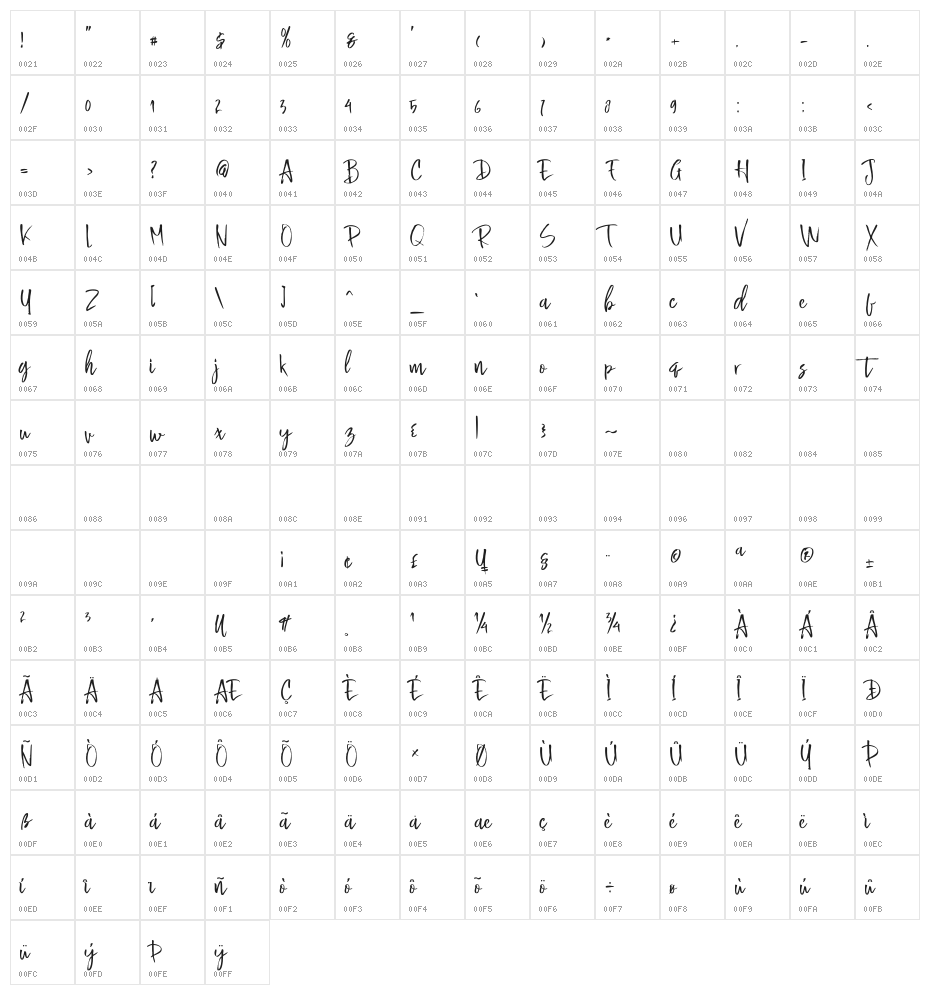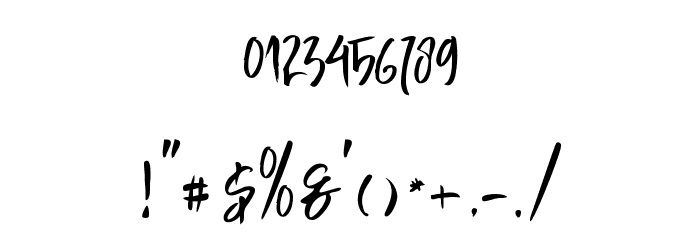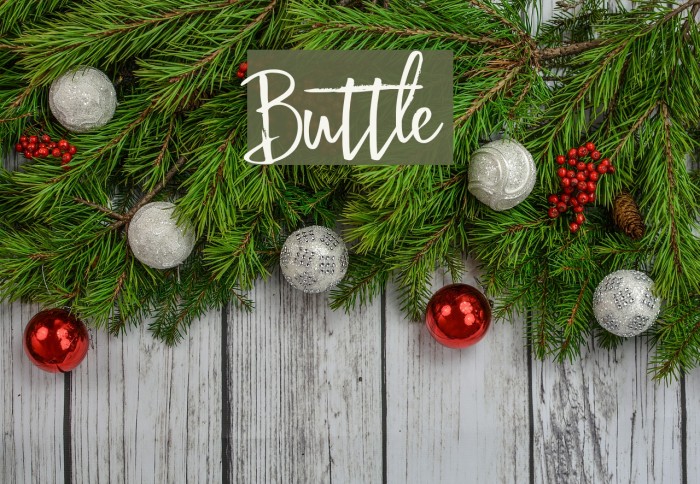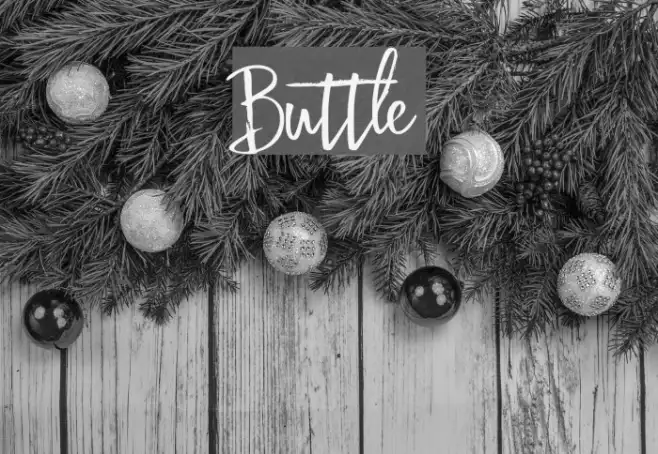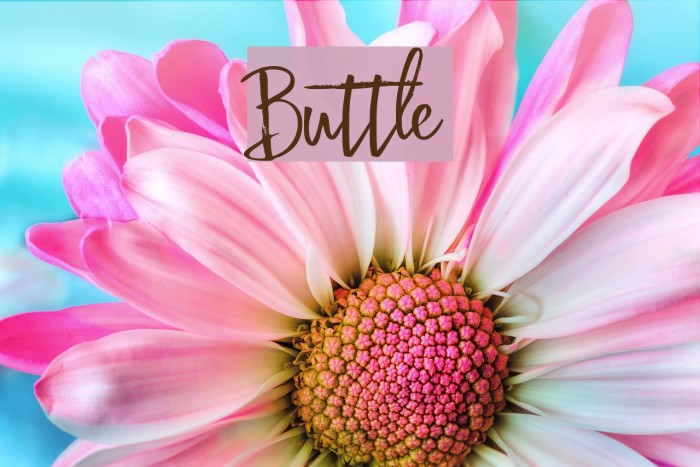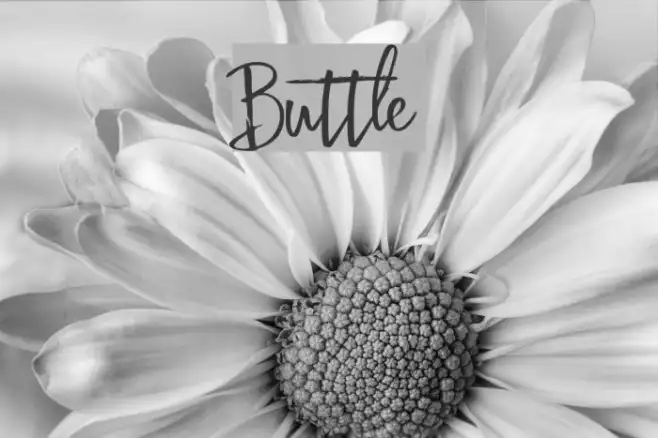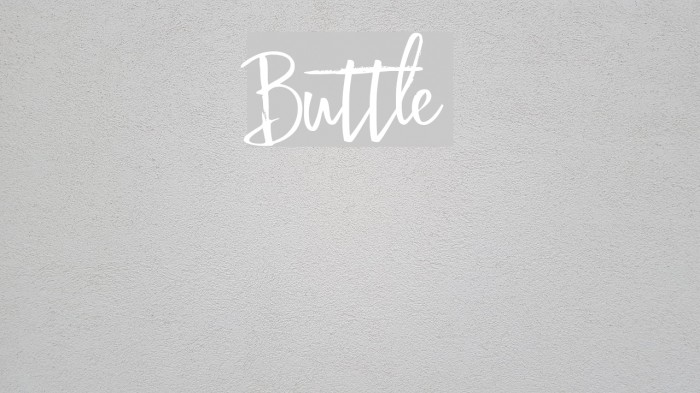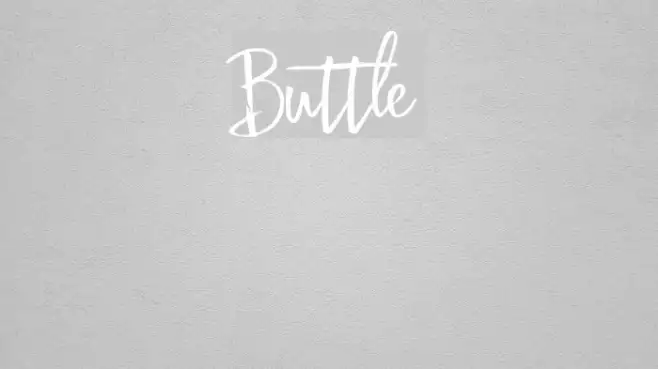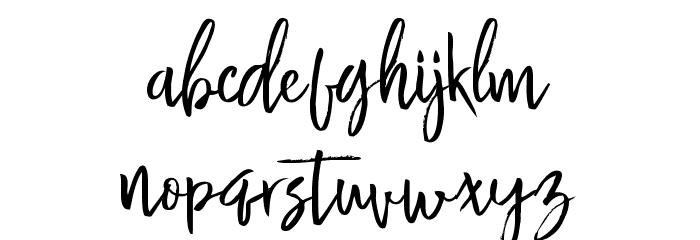
Buttle Font
Buttle Description
This font features a dynamic and expressive handwritten style, characterized by its fluid and organic strokes. The letters are slightly slanted, giving a sense of movement and energy. The uppercase letters are bold and prominent, while the lowercase letters maintain a consistent flow with a slightly more delicate touch. The numbers and special characters are crafted with the same attention to detail, ensuring a cohesive look across all elements. This font's brush-like texture adds a personal and artistic flair, making it suitable for creative and informal applications.
| Proposed Projects | Ideal for creative projects such as invitations, greeting cards, branding, and social media graphics. |